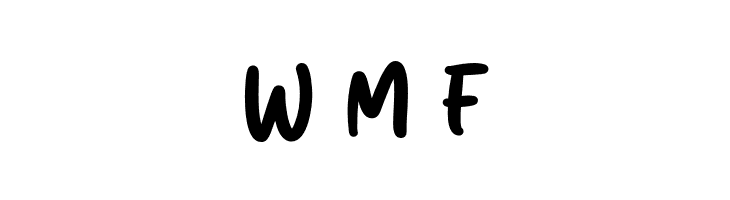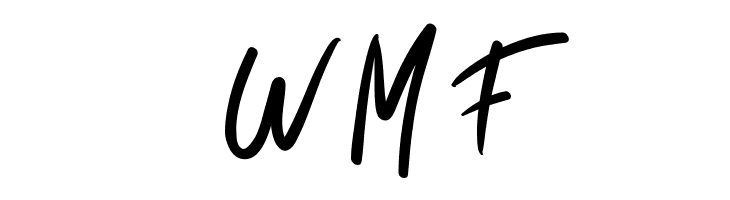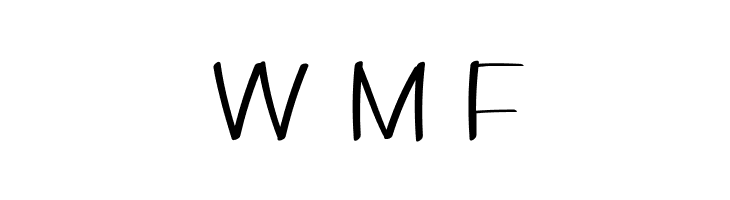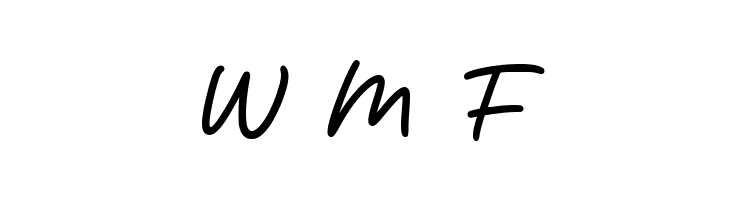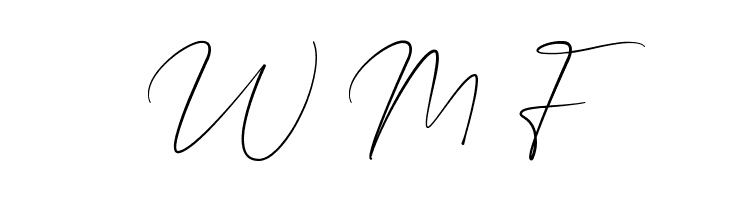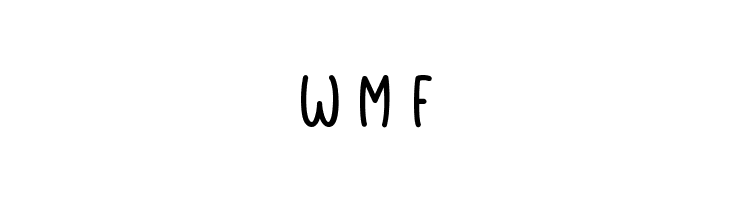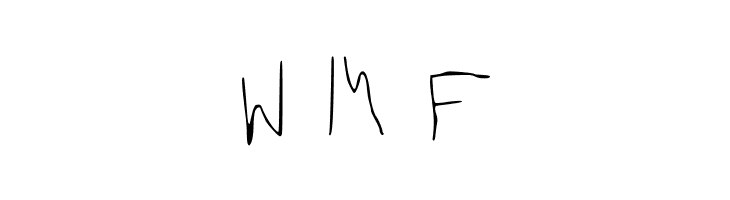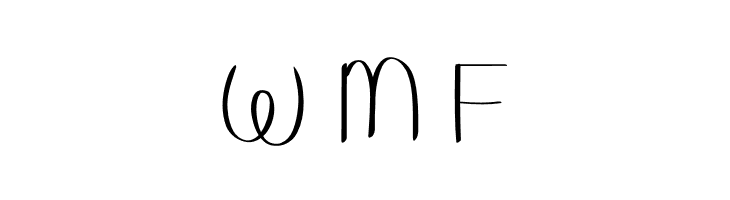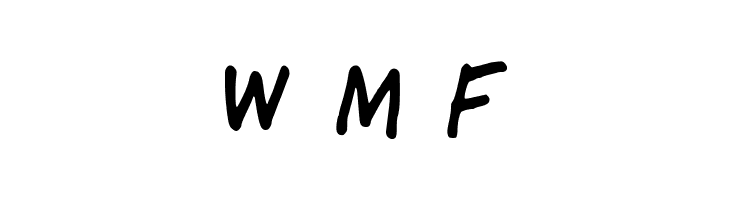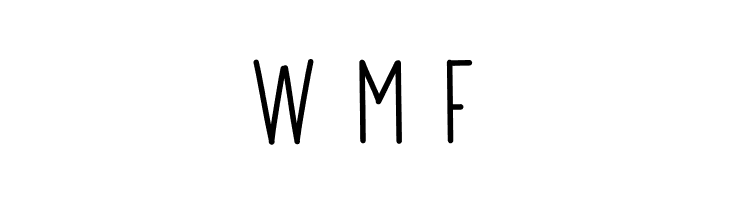
Casual handwritten script font.
A playful, handwritten font with tall, narrow letterforms and a whimsical style.
A whimsical, handwritten font with flowing, delicate strokes and a playful style.
A graceful and elegant script font with flowing, cursive letters.
A bold, brush-style script font with dynamic, fluid strokes.
A bold, expressive script font with dynamic strokes and artistic flair.
A fluid and elegant script font with smooth, flowing lines and cursive connections.
A lively and expressive script font with bold, flowing cursive letters.
A dynamic and elegant script font with fluid, cursive strokes.
A bold, playful handwritten font with a dynamic and informal style.
A playful, handwritten font with tall, narrow characters and a casual style.
( If you are looking for a handwritten typeface that can perfectly use in all yourvaluable designs then pick Mr. Quincy font. This is a handcrafted typeface that comes with extended features and a huge stylish character set that are very suitable for any ty )
A tall, slender, and monolinear font with a modern and minimalistic style.
Handwritten cursive script font.
A playful, hand-drawn font with bold, irregular strokes and a dynamic appearance.
A playful, handwritten font with tall, narrow letters and consistent stroke width.
A playful, handwritten font with a casual and approachable style.
A playful, handwritten font with smooth, rounded strokes and a casual vibe.
A playful, handwritten font with tall, narrow characters and a whimsical style.
A quirky, hand-drawn font with a playful and whimsical style.
A playful, handwritten font with flowing, interconnected letterforms.
A bold, handwritten font with a playful and casual style.
A playful, handwritten font with a whimsical and friendly style.